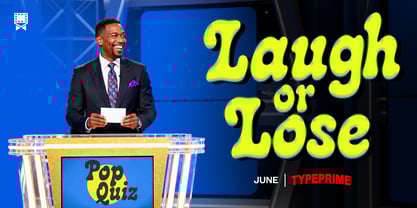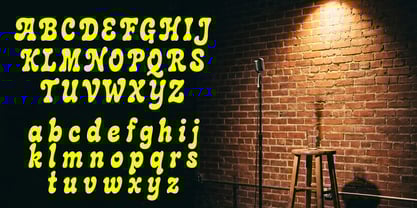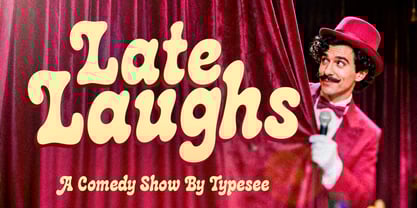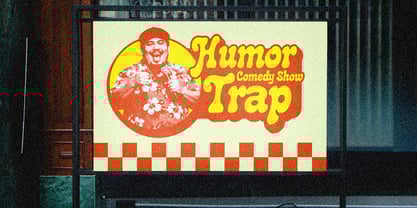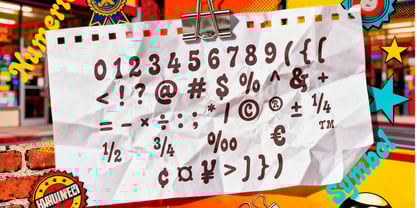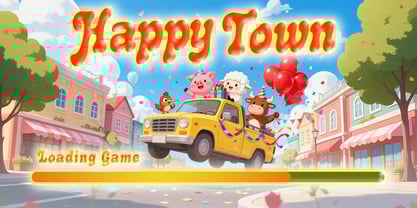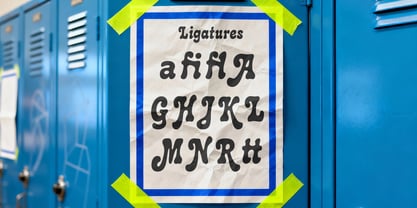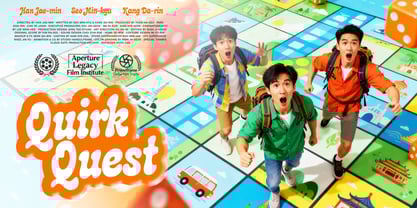
Late Laughs
Die Schriftfamilie Late Laughs wurde von Rizka Prayuda, Muhammad Mirza Azhmi entworfen und von Typesee veröffentlicht. Late Laughs enthält 1 Stile. Mehr über diese Familie
Late Laughs is a bold and joyful retro display font designed to bring personality and humor into your projects. Inspired by classic comedy clubs, vintage show posters, and hand drawn lettering, this font features soft, rounded shapes and expressive curves that radiate warmth and fun. Whether you’re creating a comedy show poster, YouTube thumbnail, branding for playful products, or retro-themed designs, Late Laughs delivers a lively visual punch. It includes uppercase, lowercase, numerals, punctuation, ligatures, and playful symbols making it flexible for both creative titles and quirky typography compositions. With its nostalgic yet modern charm, Late Laughs is the perfect choice for designers seeking a friendly, energetic, and crowd pleasing display font.
Designer: Rizka Prayuda, Muhammad Mirza Azhmi